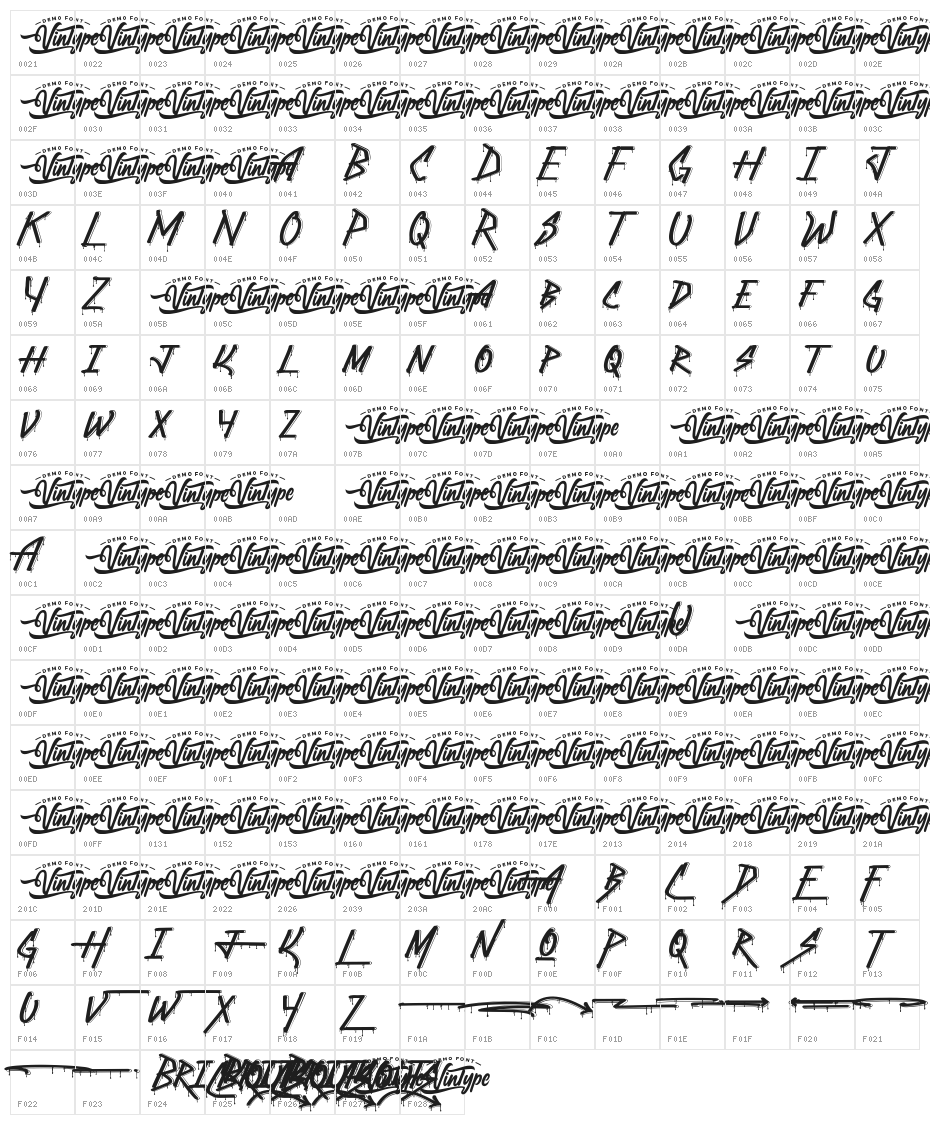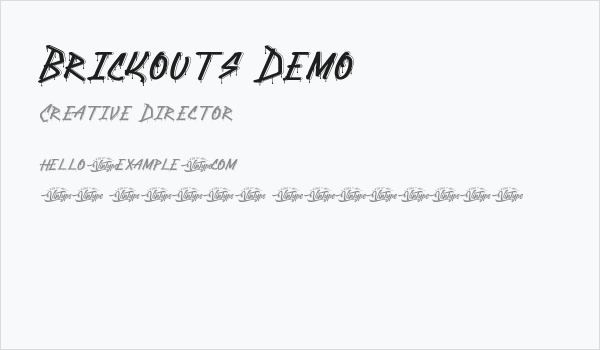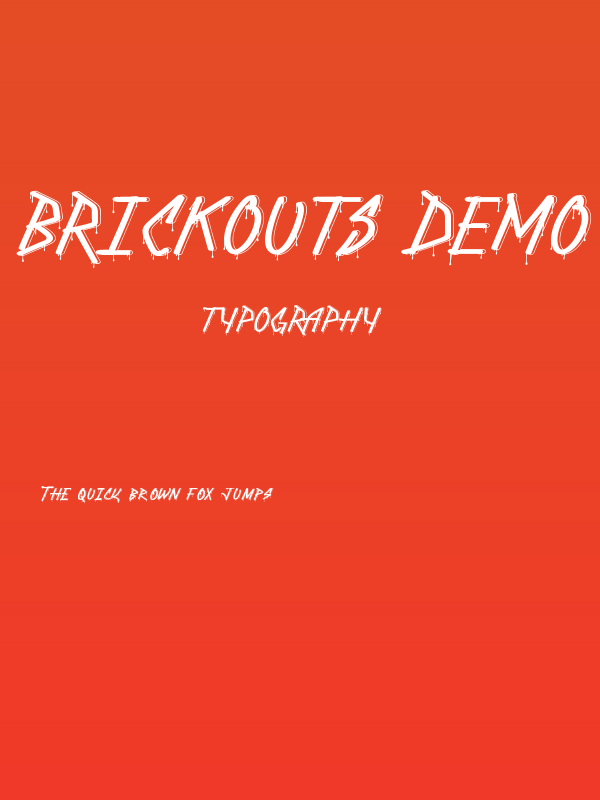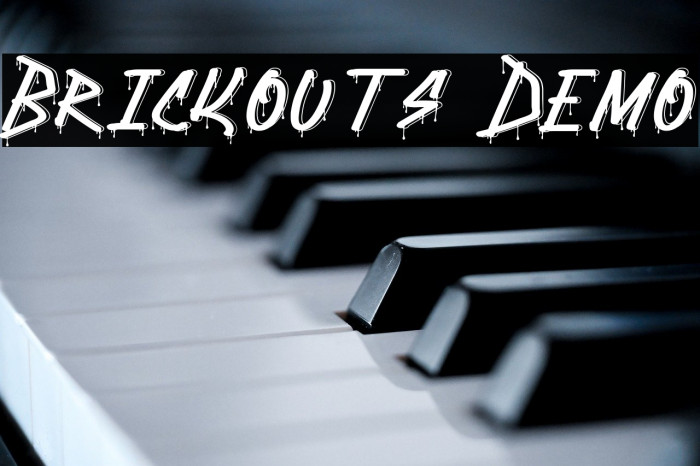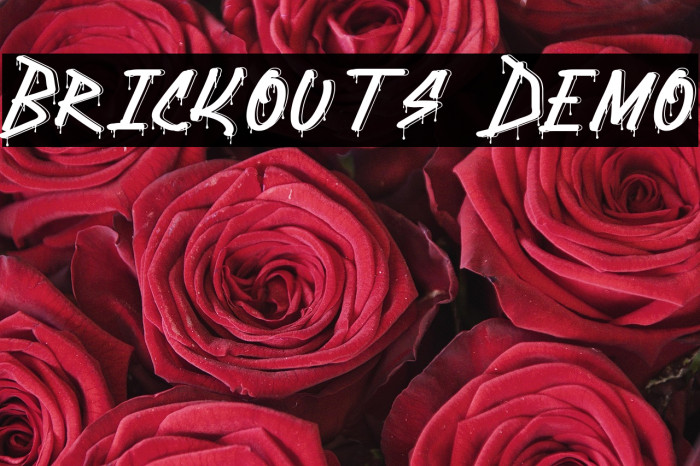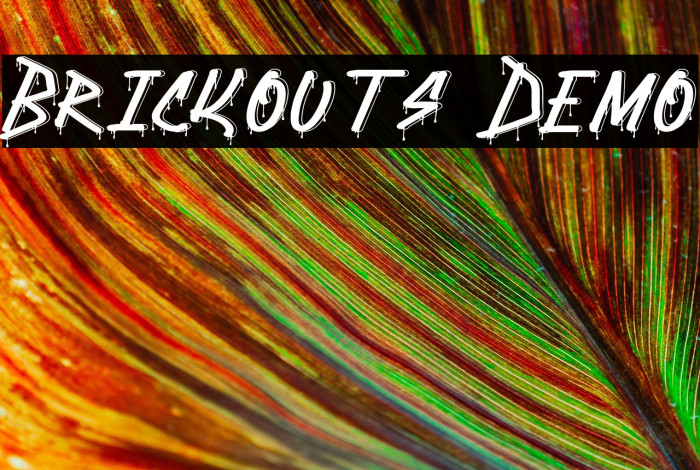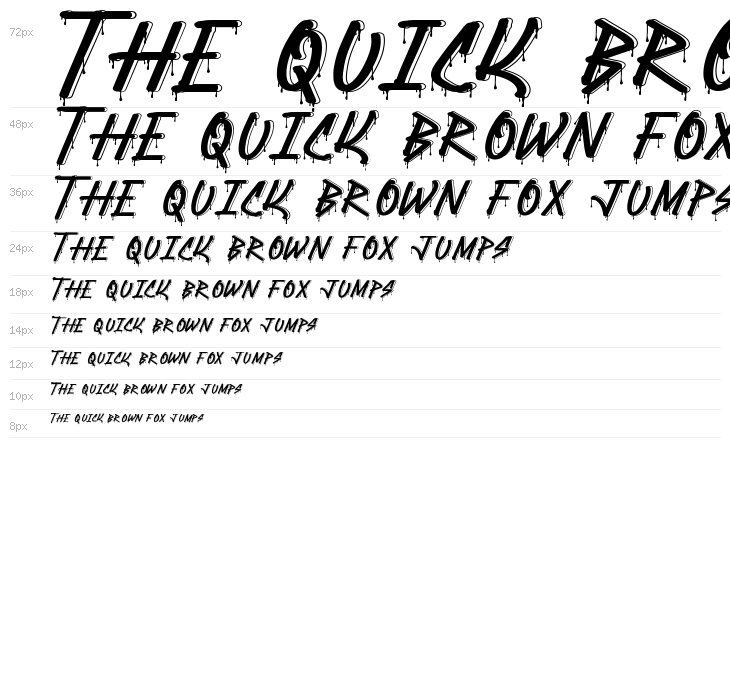
Brickouts Demo Font
This font features a bold, graffiti-inspired style with a dripping paint effect that gives it a dynamic and edgy appearance. The uppercase and lowercase letters are crafted with sharp angles and fluid strokes, creating a sense of movement and energy. The numerals and special characters maintain this aesthetic, ensuring a cohesive look across all text elements. The font's unique style makes it ideal for projects that require a bold statement or urban feel.
| Overall Style | Urban, Edgy, Modern |
| Proposed Projects | Ideal for street art designs, music album covers, urban-themed posters, and edgy branding projects. |